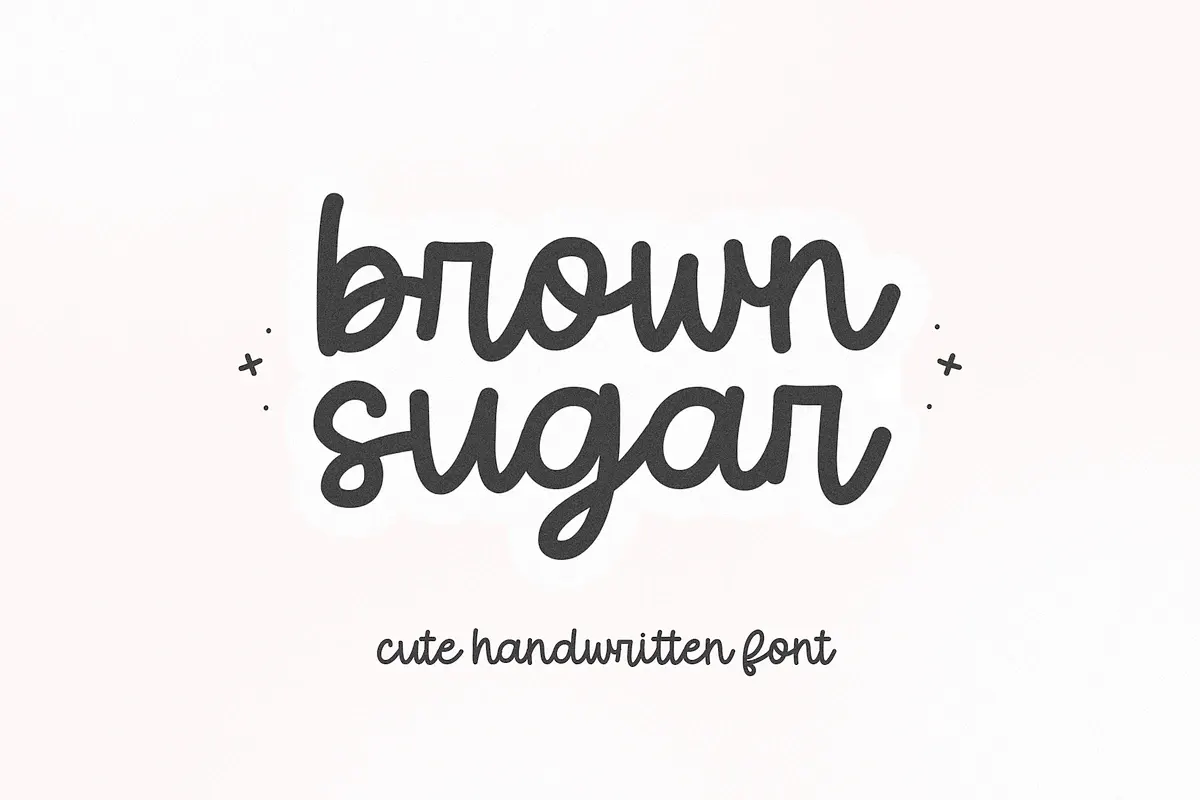
The Brown Sugar | Cute Script Font Free Download is a charming and playful handwritten script typeface that brings a fun and whimsical feel to your designs. Perfect for creating logos, invitations, greeting cards, social media graphics, and more, this font adds a sweet, personal touch to any project. Please note, for commercial use, a license must be purchased. You can download it for free for testing purposes.
With its smooth, flowing strokes and cute, rounded letters, the Brown Sugar | Cute Script Font Free Download is ideal for projects that need a friendly, casual vibe. Whether you're designing for a bakery, custom stationery, or a fun branding project, this font will give your designs a warm, inviting look.